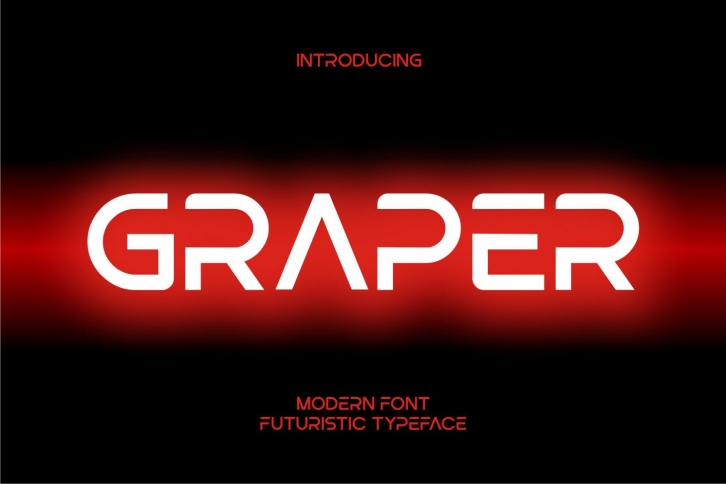
Graper is a cool and modern styled display font. This font is ideal for writing web designs, business cards, or pretty much anything else that requires a futuristic touch.